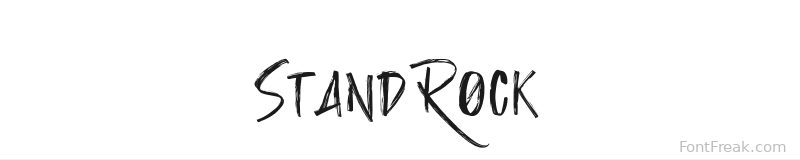
StandRock
StandRock, designed by Kong Font in 2021, is a captivating handwritten typeface that exudes a rustic charm. This font features a unique blend of casual elegance and artistic flair, making it a versatile choice for a variety of design projects. The strokes are slightly uneven, giving it an organic feel, while the moderate contrast and varied stroke weight add character and depth. The generous spacing between the letters enhances readability, making StandRock an excellent option for both digital and print applications.
This typeface shines in use cases such as wedding invitations, where its romantic and personal touch can set the perfect tone. Additionally, StandRock is ideal for branding materials, helping small businesses craft a memorable identity. It also works wonderfully for cafe menus, adding a warm and inviting atmosphere, and can elevate posters for events, making them stand out with its artistic appeal. Graphic designers and content creators will find this font particularly useful, as it allows for creative expression while maintaining professionalism.
What truly sets the StandRock font apart is its ability to blend casual charm with artistic sophistication. This makes it a perfect choice for projects that require a personal touch without compromising on style. Whether you’re designing an eye-catching social media graphic or a heartfelt invitation, the StandRock font free download offers an accessible way to elevate your work. Its unique characteristics and versatile applications make it a valuable addition to any designer's toolkit, ensuring that your projects resonate with audiences and leave a lasting impression.